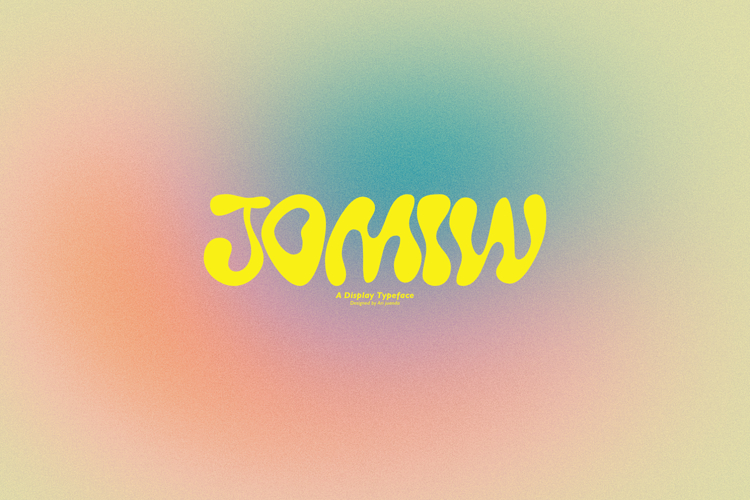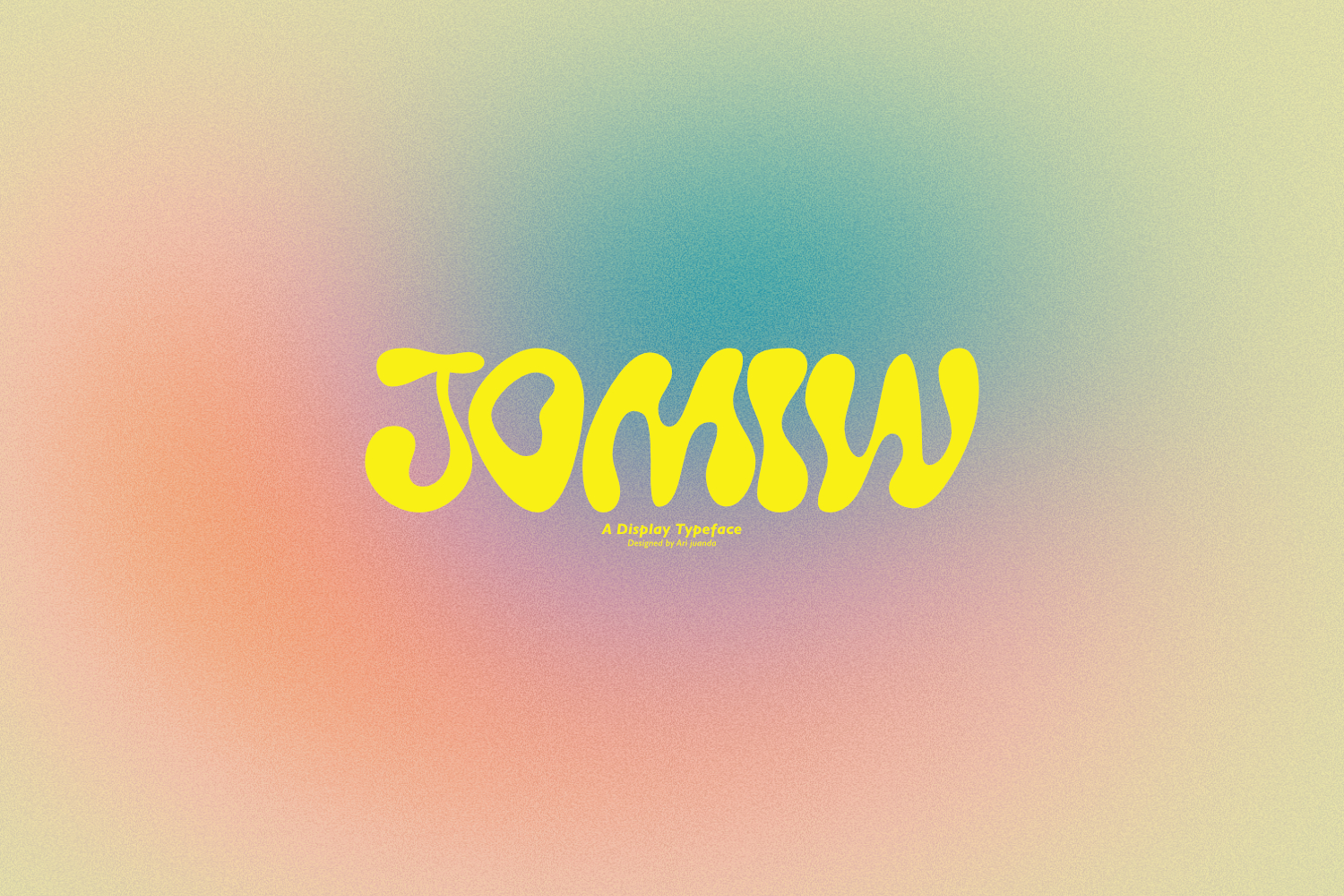
Jowmi- A Display Typeface
JOMIW is a playful display typeface filled with organic shapes and expressive energy. Its fluid and flexible letterforms create a strong retro psychedelic vibe blended with a modern urban touch. Every character is designed with soft curves and imperfect shapes, giving the font a unique, artistic, and eye-catching personality.
The typeface features bold rounded forms that feel friendly yet visually strong. Its flowing structure almost looks melted or freely moving, creating a lively and dynamic rhythm across every word. This distinctive style makes JOMIW highly expressive and instantly recognizable.
Highlighted Features:
- Multilingual support including characters such as ä, ö, ü, Ä, Ö, Ü, ß, ¿, and ¡